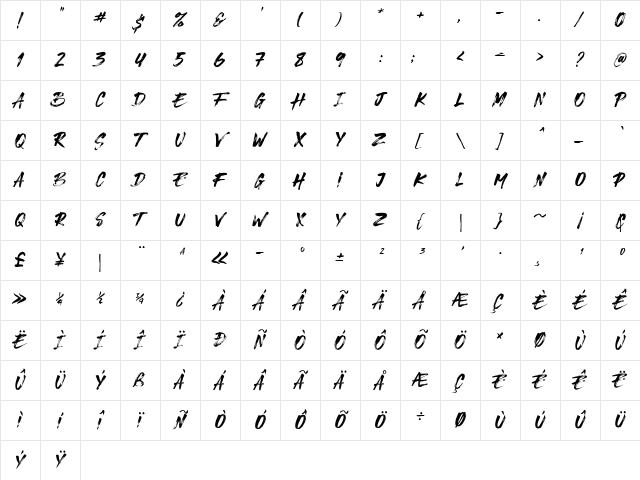
Bridgers Brush Regular
Foundry: Fargun Studio
Designer: Fargun Studio
Design Context for Bridgers Brush
Bridgers Brush flows with the natural rhythm of handwritten lettering, making it ideal for designs that call for warmth and personal expression.
Font Pairing: Combine Bridgers Brush with a simple geometric sans for maximum contrast - the tension between flowing curves and clean structure is a classic typographic pairing.
Pro Tip: Use Bridgers Brush for short runs of text - names, titles, or taglines. Extended body copy in script faces tires the eye quickly.